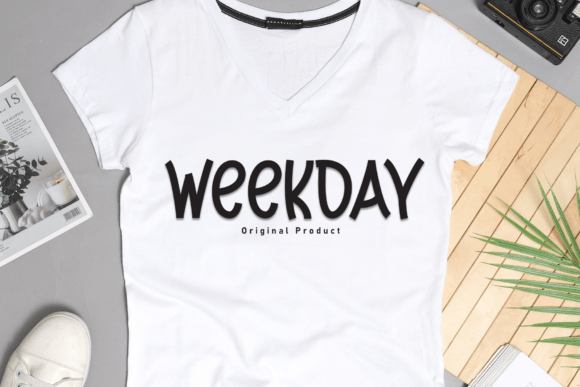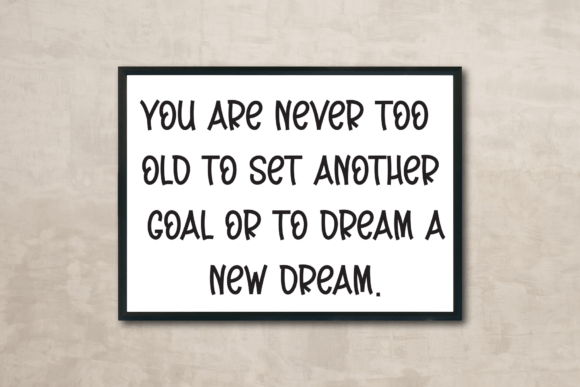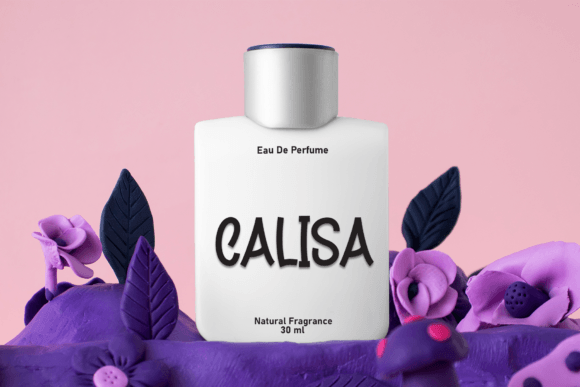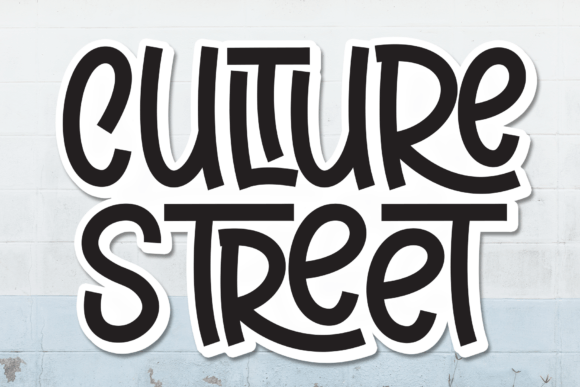
Introduction to Culture Street Font
Culture Street is a stylish handwritten display font with a clean and elegant look.
It combines the charm of handwriting with a modern touch, making it perfect for logos, invitations, posters, or social media Its smooth curves and unique details add a cozy and classy vibe to any design.
Culture Street Font offers exceptional quality and versatility, making it a valuable addition to your design toolkit. Whether you’re creating for personal projects or commercial use, Culture Street Font delivers professional results.